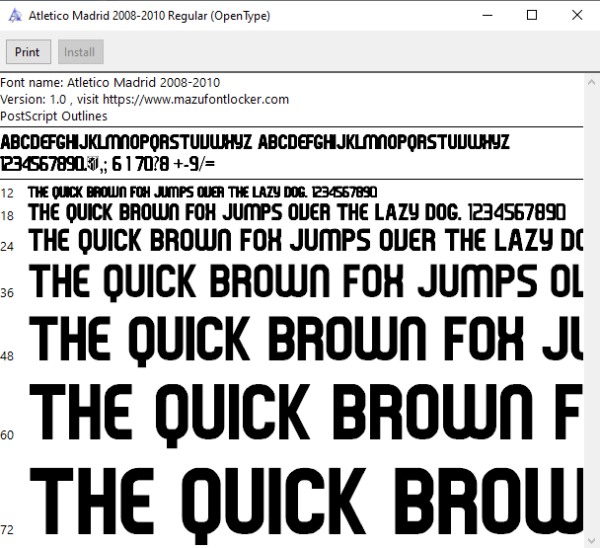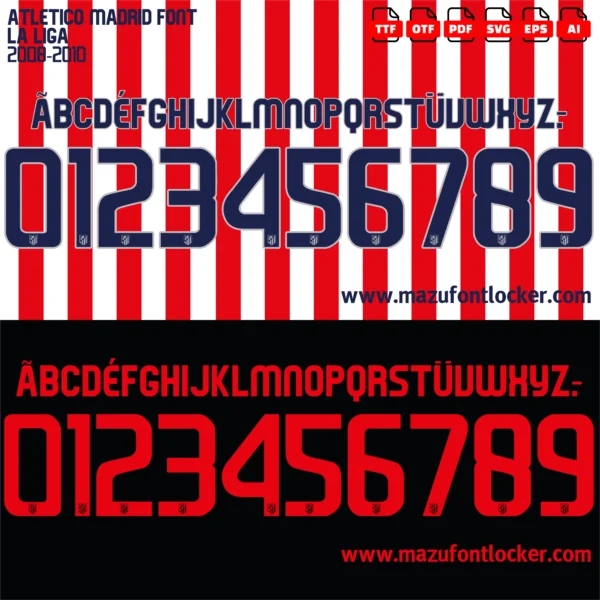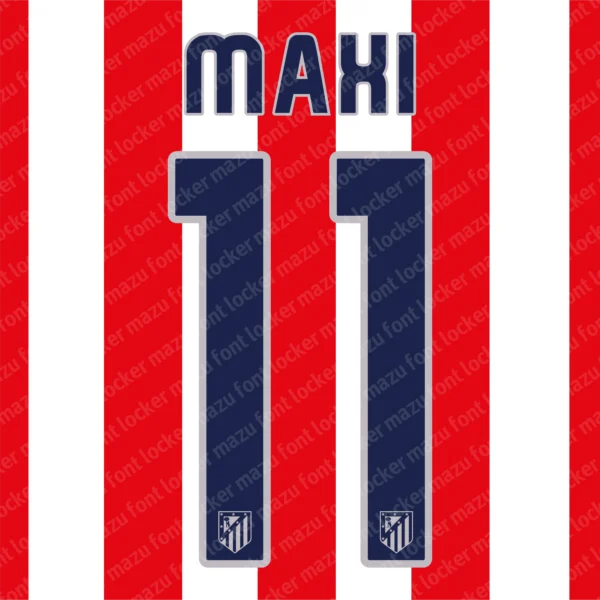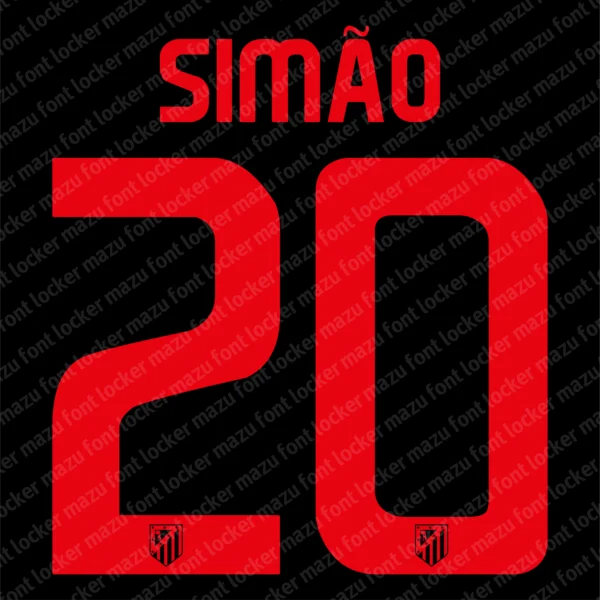
Atletico Madrid 2008-2010 Font Vector – Epic Rojiblanco Legend Masterpiece
This premium font captures the commanding, iconic, majestic, and war-machine lettering that embodies the unstoppable Colchonero spirit — delivering raw Madrid fury, explosive never-die energy, iron-clad resilience, tactical dominance, and legendary warrior grit that forged one of the greatest chapters in club history.
Atletico Madrid 2008-2010 Font Vector – Authentic Red & White Typeface
The Atletico Madrid 2008-2010 Font Vector is a premium typeface that accurately recreates the official match lettering worn by Atletico Madrid during their iconic 2008-2010 era. This high-quality vector font kit captures the bold, determined, and passionate typography that represents the club’s fighting spirit, European ambitions, and unforgettable journey under the Colchoneros banner.
This font stands out because of its sharp vector precision and strong club identity. Every letter and number is crafted to match the exact style used on the players’ shirts during Atletico Madrid’s memorable 2008-2010 seasons. Whether you are creating realistic kit templates or exciting Colchoneros-themed content, the Atletico Madrid 2008-2010 Font Vector gives your designs that authentic Vicente Calderón atmosphere.
The letterforms in the Atletico Madrid 2008-2010 Font Vector are bold, clean, and highly readable. The strokes feature strong geometric construction combined with modern athletic styling and traditional Spanish flair, creating a professional appearance that stands out on jerseys while preserving Atletico Madrid’s legendary football heritage and competitive spirit.
The numerals feature strong curves and sharp, precise edges, delivering a confident and premium appearance. This vector design ensures flawless scalability and excellent legibility across both print and digital applications.
• Full uppercase A–Z and numbers 0–9 in authentic Atletico Madrid 2008-2010 style
• Special Atletico Madrid crest glyph – Press the “:” (Colon mark) symbol to insert the crest
• Multilingual Latin character support including English and special characters
• Includes the exact crest glyph placement used beneath player numbers
Atletico Madrid 2008-2010 Era
The 2008-2010 period marked an exciting chapter for Atletico Madrid as they competed fiercely in La Liga and Europe, featuring stars like Diego Forlán, Sergio Agüero, and David de Gea. The Colchoneros displayed their trademark resilience and attacking flair at the Vicente Calderón Stadium and across European competitions.